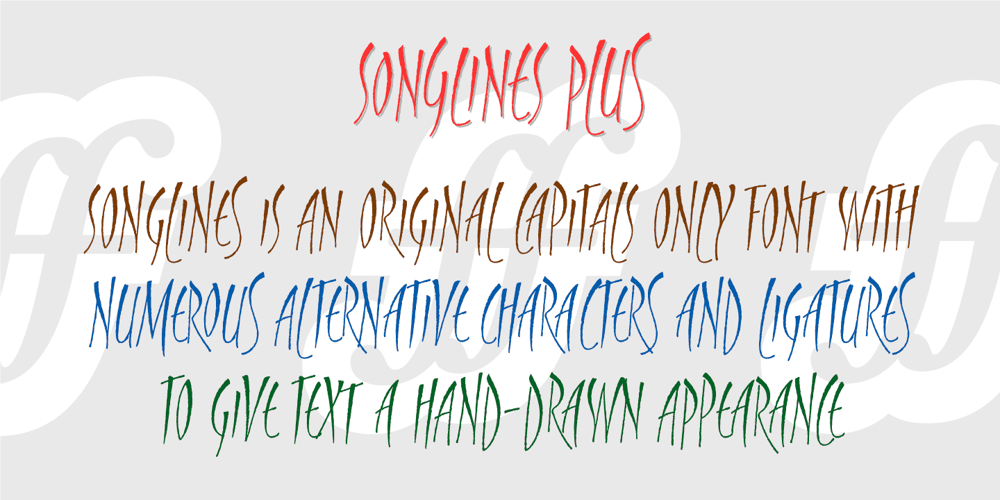
Songlines
Songlines font
Songlines Font Family was designed by Michael Harvey, Andy Benedek and published by Fine Fonts. Songlines contains 1 styles and family package options. Songlines is based upon a pen-drawn script drawn by Michael Harvey to illustrate a poem by Johannes Thurman. The expressive and rough-edged letterforms of Songlines do not have any lowercase characters. Instead, alternative uppercase characters occupy their positions. By using a mixture of upper-case and lowercase characters, text can be given a very lively and vigorous character. For example, the two versions of L are designed to overlap and interact whichever way round they are used. The augmented Songlines Plus version, has many alternative characters and ligatures added together with Opentype features to enable their automatic substitution where the application in which they are used permits.